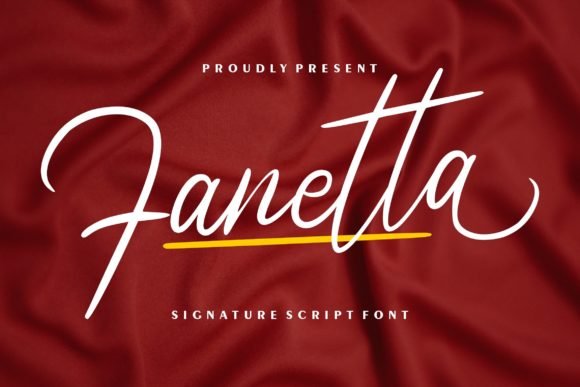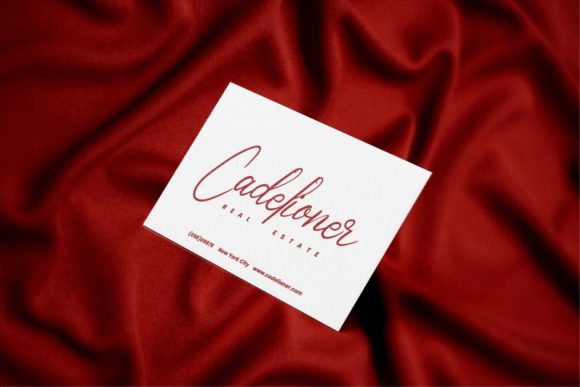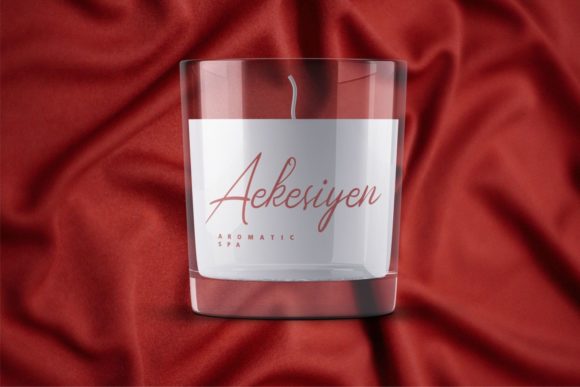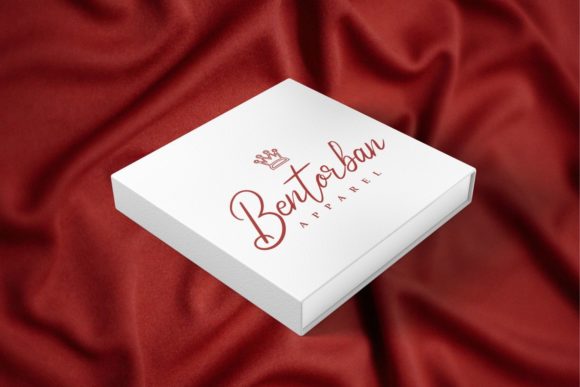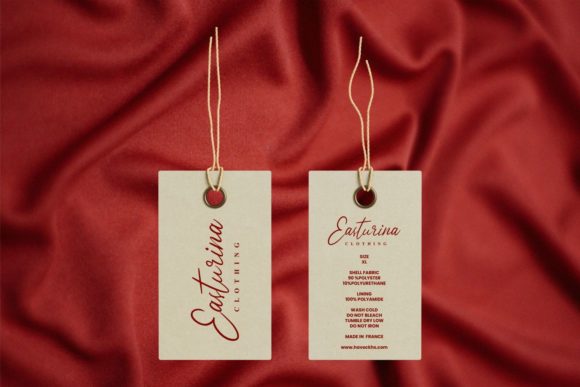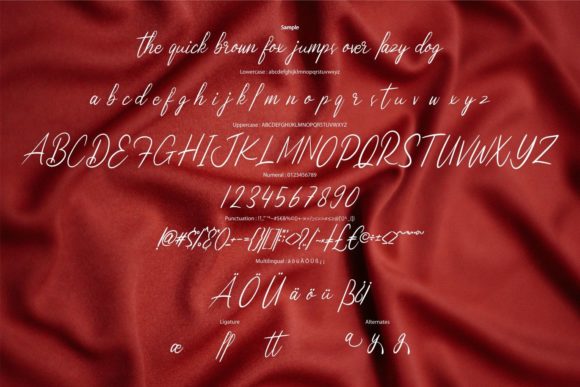
Discover the Magic of Fanetta Font: Elevate Your Designs
As designers, we’ve all been there – staring at a blank canvas, trying to conjure up the perfect idea. The cursor blinks, taunting us, until suddenly, inspiration strikes. You see it – a vision of elegance, a dash of sophistication, and a pinch of whimsy. That’s where Fanetta Font comes in – the perfect accompaniment to bring your creative vision to life.
With its modern script design, Fanetta Font is the ultimate tool for any designer looking to add a touch of refinement to their work. Whether you’re crafting wedding invitations, greeting cards, or branding materials, this font is sure to make your designs stand out. And the best part? It’s incredibly versatile, lending itself seamlessly to a wide range of applications, from quotes to posters.
For designers, Fanetta Font is a valuable addition to their toolkit, offering endless possibilities for creative expression. Add it to your designs, and watch your work transform into something truly special.
Fanetta Font Key Features
- Unique Characteristics: Fanetta Font features a unique blend of modern and vintage elements, with elegant curves and geometric shapes.
- Language Support: Supports multiple languages, including Latin, Cyrillic, and Greek alphabets, for global design applications.
- Kerning and Ligatures: Includes advanced kerning and ligature pairs for precise typographic control and a polished appearance.
Designer Review: Fanetta Font
Overall, I found the Fanetta Font to be a unique and stylish addition to any design project. ✨ Its bold and elegant lines create a sophisticated atmosphere, making it perfect for luxury brands and high-end products.
The font’s versatility is one of its strongest points, as it can be used for both print and digital applications. ✨ It’s also highly legible, even at smaller font sizes, which is essential for ensuring readability across various platforms.
- Unique and stylish design that adds a touch of sophistication
- Highly legible, even at smaller font sizes
- Versatile and suitable for both print and digital applications
- May not be suitable for simpler or more casual designs
- Can be overwhelming if used too extensively
- May require additional styling to balance with other design elements
- ⚠️ Limited character set, which may not be ideal for extensive text-based projects
Overall, I would recommend the Fanetta Font for designers looking to add a touch of elegance and sophistication to their projects. However, it’s essential to use it judiciously and balance it with other design elements to avoid overwhelming the viewer.
Tips for Getting the Most Out of Fanetta Font
Use the Fanetta Font for creative projects that require a playful and whimsical touch. Pair it with bold colors and geometric shapes for a unique and eye-catching design. Experiment with different font sizes and styles to create visual interest and emphasis.
The Fanetta Font is ideal for use in:
– Social media graphics and advertisements
– Branding and marketing materials
– Children’s books and educational materials
– Playful and creative projects that require a touch of whimsy.